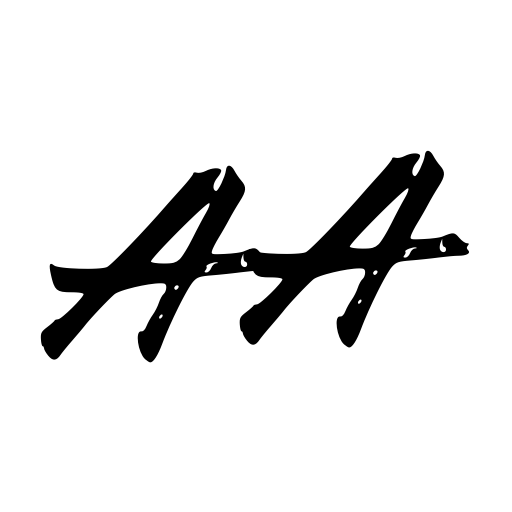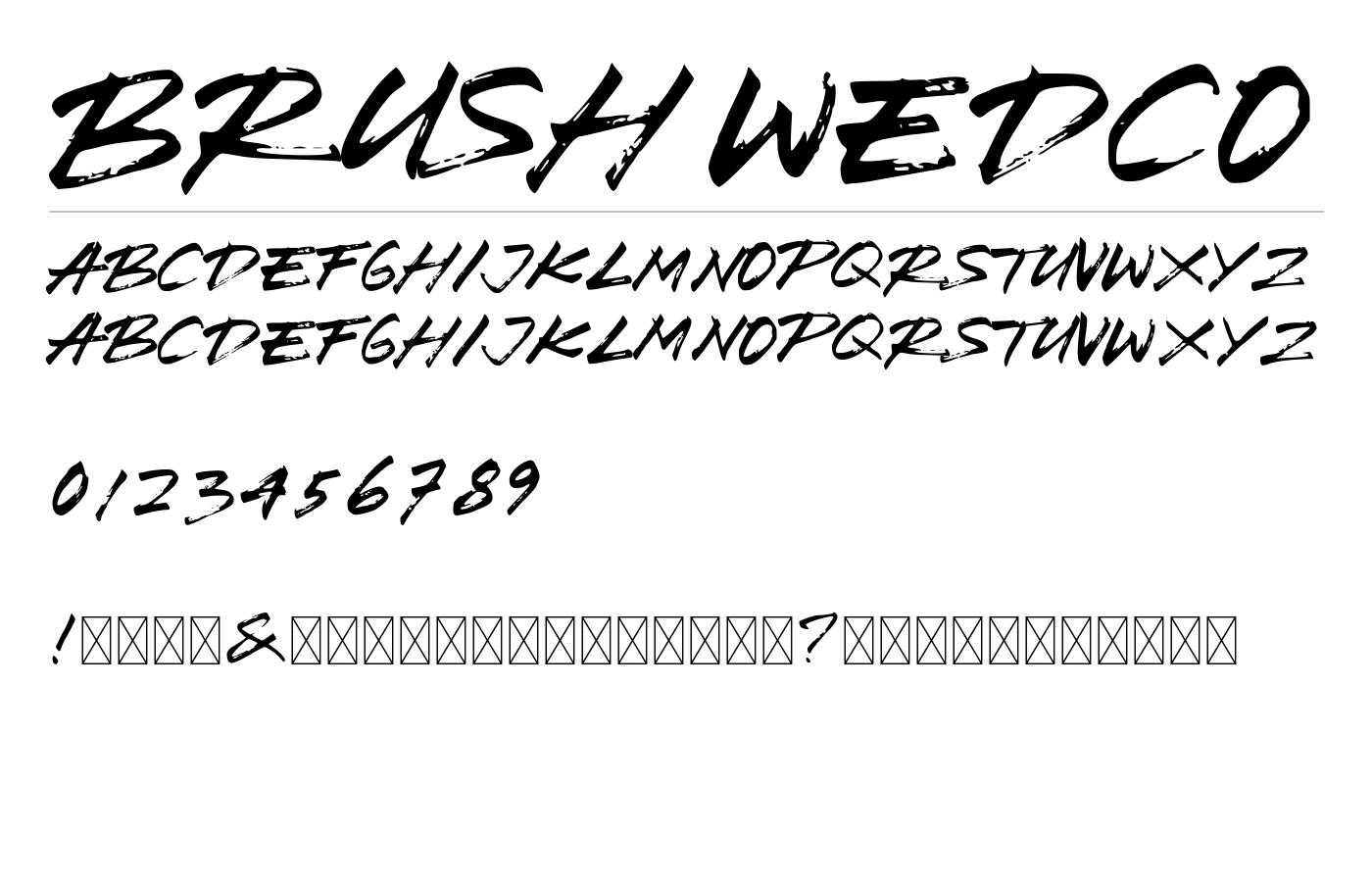
Brush Wedco is a bold, energetic script font that mimics the dynamic strokes of a dry brush, delivering a raw, artistic texture. Its rough edges and high-contrast, irregular shapes give it a lively, edgy feel perfect for creative branding, posters, and headlines where a hand-crafted, informal vibe is desired. This font stands out best in expressive design contexts, bringing a sense of movement and personality to any project.
Brush Wedco Font
About Brush Wedco Font
| Font family | Brush Wedco Font |